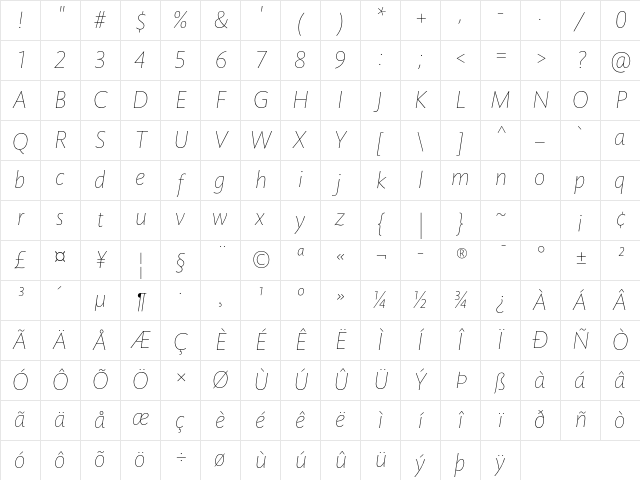
Mundo Sans Std Extra Light It
Style: Extra Light It
Design Context for Mundo Sans Std
Mundo Sans Std is a composed and adaptable typeface that performs quietly and consistently across a wide range of design contexts. Its slender proportions lend an understated elegance to any composition.